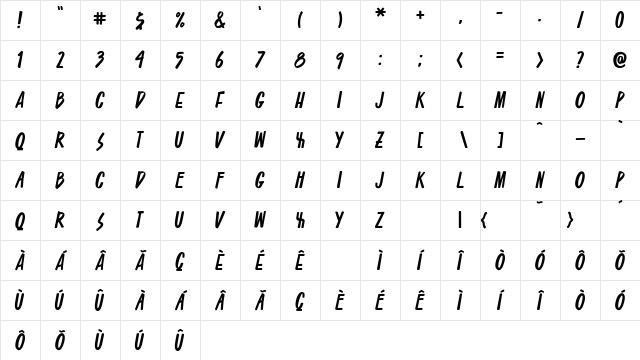
Asteristico Regular
Design Context for Asteristico
Asteristico is a composed and adaptable typeface that performs quietly and consistently across a wide range of design contexts.